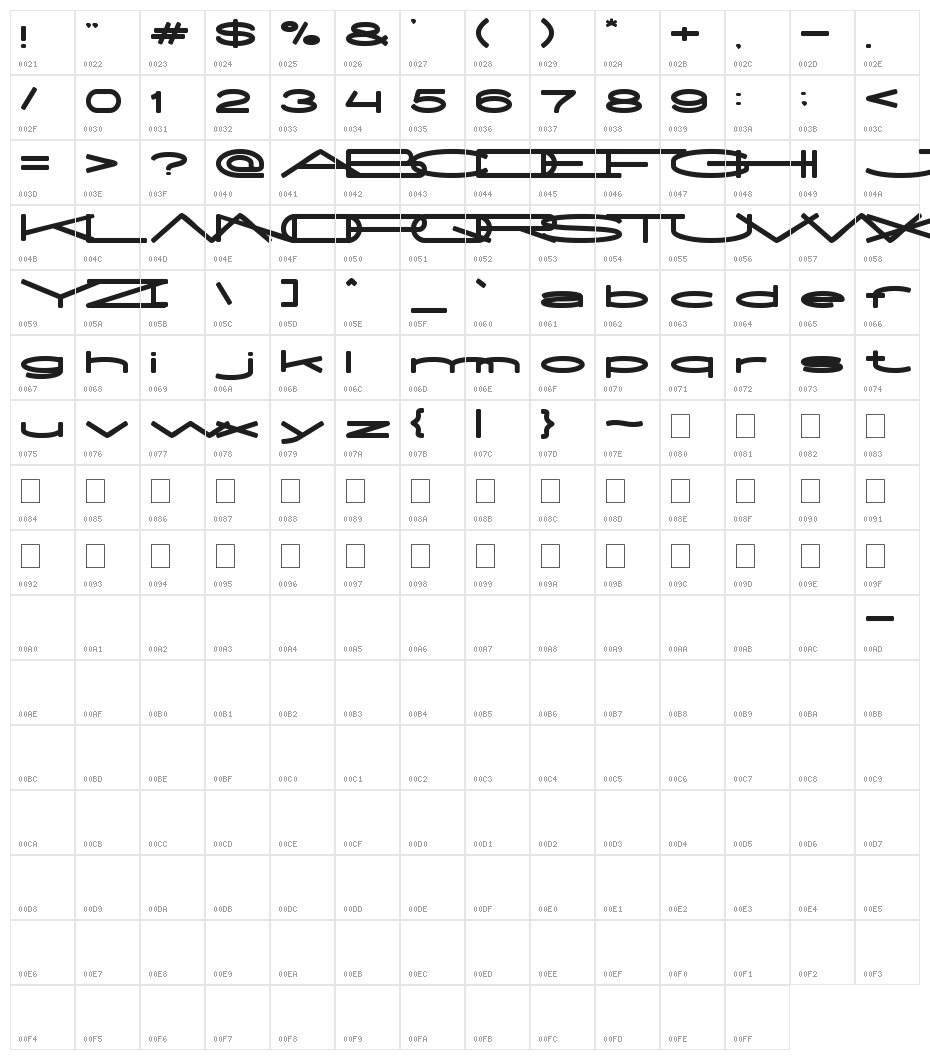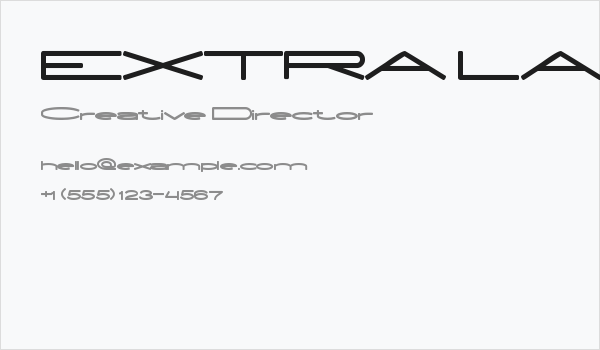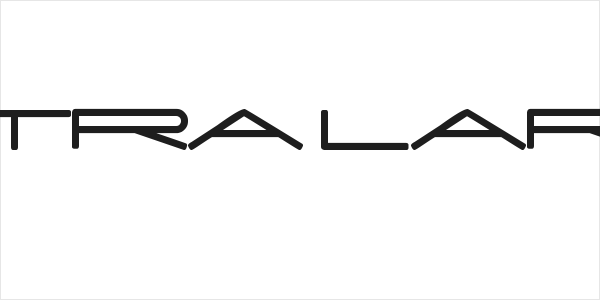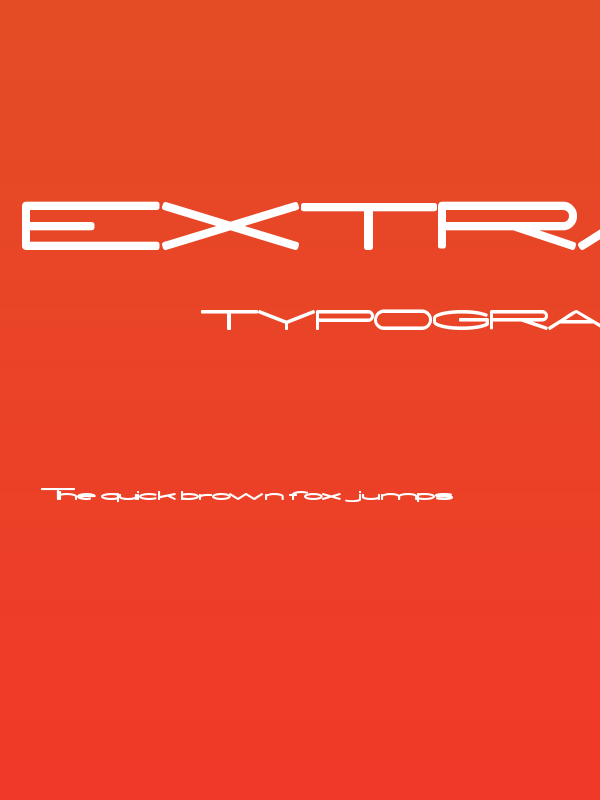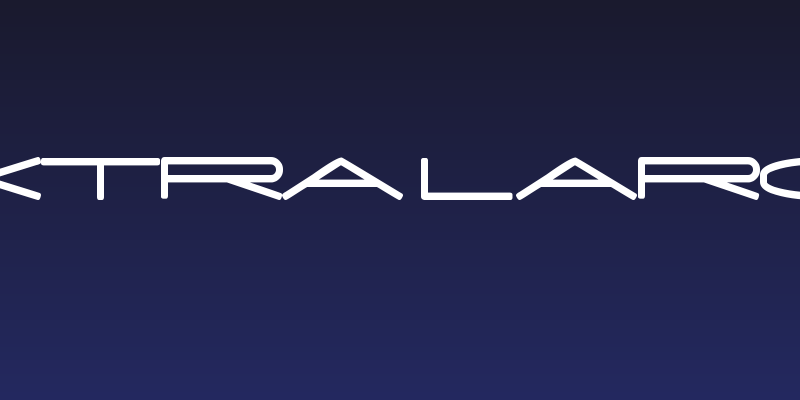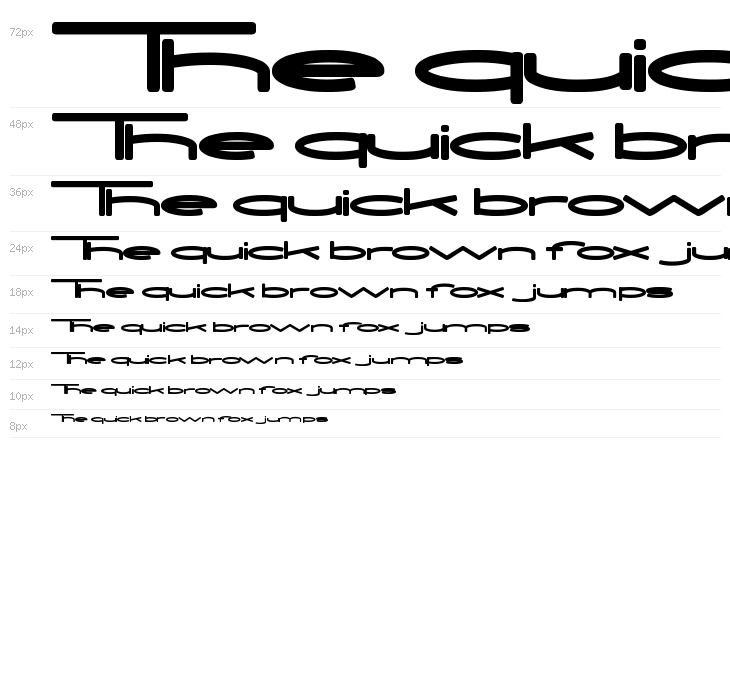
EXTRA LARGE Font
EXTRA LARGE Description
This font features a sleek, futuristic design with elongated and streamlined characters. The uppercase letters are particularly striking, with a geometric and angular appearance that suggests a sense of motion and speed. The lowercase letters maintain a consistent style, offering a harmonious balance between form and function. The numerals are bold and clear, ensuring readability while maintaining the overall aesthetic. Special characters are designed with the same attention to detail, providing a cohesive look across all glyphs. This font is ideal for projects that require a modern and dynamic feel.